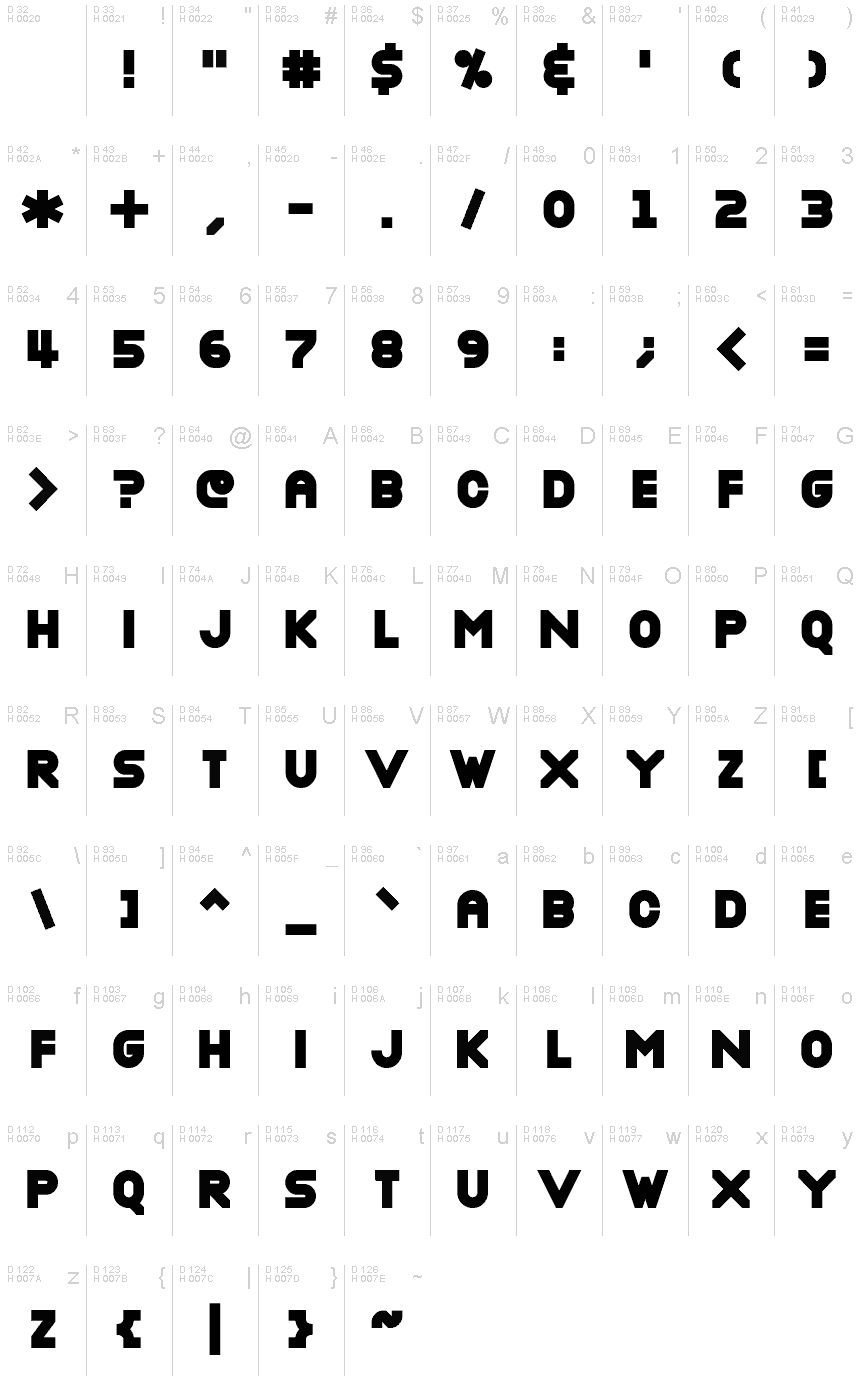
NottkeBlack
Nottke Black is a striking sans-serif font that commands attention with its bold, unapologetic presence. Designed by Grudnuk, this typeface exudes a sense of power and authority, making it an excellent choice for headlines, branding, and eye-catching displays. The thick, geometric letterforms lend a modern, industrial feel, while the sharp terminals and consistent stroke weights contribute to its sleek, sophisticated aesthetic.
Nottke Black's versatility extends beyond headline use. Its strong visual impact allows it to function as a complementary accent font, pairing beautifully with a wide range of text and body copy typefaces to create dynamic typographic hierarchies. Designers seeking to convey a sense of strength, modernity, and assertiveness will find Nottke Black a compelling addition to their typographic toolkit.
Inspired by Silkscreen (see kottke.org)